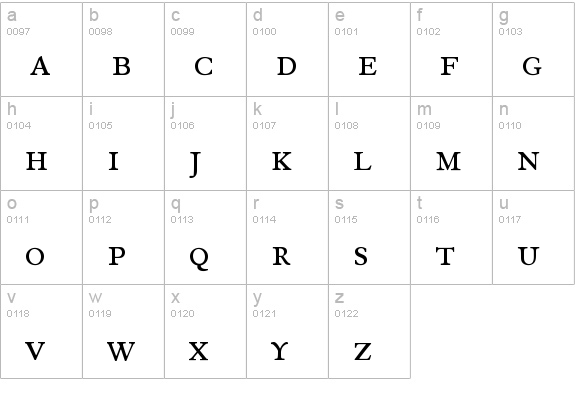
EldoradoText-RomanSC font is a classic and elegant typeface that exudes sophistication and charm. With its timeless design and refined appearance, this font is perfect for adding a touch of class to any project. The clean lines and subtle curves of EldoradoText-RomanSC make it a versatile choice for a wide range of applications, from print materials to digital designs. What sets EldoradoText-RomanSC apart is that it is available for free download at FontsMarket.com, making it accessible to all designers and creatives looking to elevate their work with a high-quality font. Whether you're working on a branding project, a wedding invitation, or a website design, EldoradoText-RomanSC offers a touch of luxury that will set your work apart. Download this exquisite font today and add a touch of elegance to your next project.